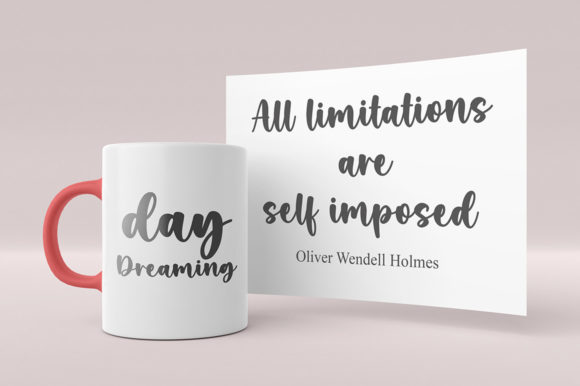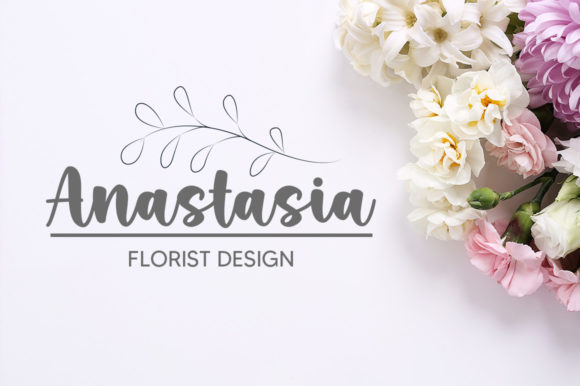
Michelia Font
db-ku.com - Script & Handwritten -- Michelia is a delicate, elegant, and flowing handwritten font. It has beautiful and well-balanced characters and as a result, it matches a wide pool of designs. Add it to your most creative ideas, and notice how it makes them come alive!